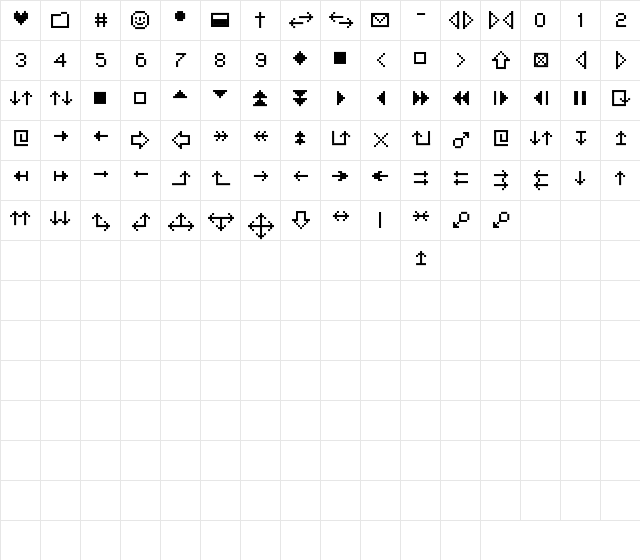
MiniStrzalki Regular Free Font
MiniStrzalki Regular
Design Context for MiniStrzalki
MiniStrzalki is a composed and adaptable typeface that performs quietly and consistently across a wide range of design contexts.